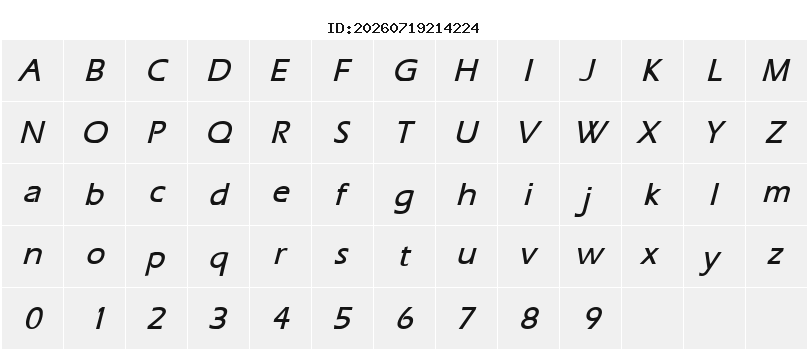
Eric Preview
• Font Name: Eric
• Font ID: FontMonger:Eric Bold Italic
• Full Font Name: Eric Bold Italic
• Version: 1.0 Tue Jul 27 00:31:08 1993
• PostScript Name: EricBoldItalic
• Character Count: 271
About Eric.ttf
Eric.ttf is a modern, elegant sans-serif font designed for ultimate readability and visual harmony. Perfect for branding, headlines, web design, and print materials.